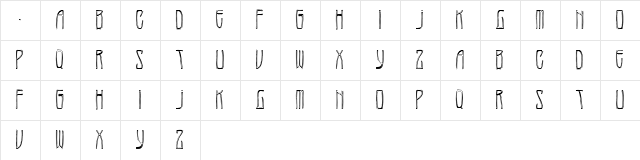
GradlMonogrammeOne Regular
Design Context for GradlMonogrammeOne
GradlMonogrammeOne uses fixed-width spacing throughout, giving it the structured, systematic character associated with coding environments and technical documentation.